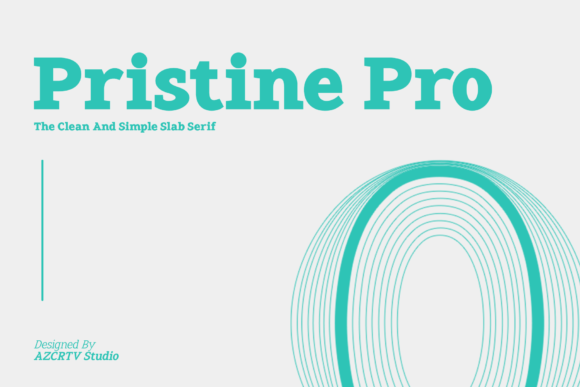
Introducing Pristine Pro, the ultimate font for professionals seeking elegance and precision in typography. Developed by the renowned Azcreative Studio, this Slab Serif font is a masterpiece that guarantees sophistication in all your projects.
With its 18 versatile font families, ranging from Thin to Black, Pristine Pro offers a customized solution for every design requirement. Whether you're creating a sleek logo, a captivating website, or a stunning brochure, this font will elevate your work to new heights.
Pristine Pro is not just a typeface; it's a bold statement of modernity and style. Its clean lines and firm structure create a seamless blend that captures attention and leaves a lasting impression. Immerse yourself in the world of Pristine Pro and discover the power of exceptional typography.
One of the key advantages of Pristine Pro is its extensive language support. With 89 international languages, including English, French, Spanish, and German, this font ensures effective communication across the globe. Break language barriers and connect with your audience on a global scale, making your designs truly inclusive and impactful.
Whether you're a graphic designer, a web developer, or a creative entrepreneur, Pristine Pro is your secret weapon for success. Its captivating presence and meticulous craftsmanship will set you apart from the competition, leaving a memorable impression on your clients and customers.